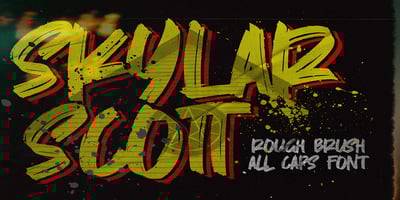
Skylarr Scott
Skylarr Scott font
Skylarr Scott Font Family was designed by Abdul Malik Wisnu, Anang Fibriyanto and published by Gassstype. Skylarr Scott contains 1 styles and family package options. Skylarr Scott – Handwritten Brush font with a Rough style and dramatic movement. This font is great for your next creative project such as logos, printed quotes, invitations, cards, product packaging, headers, Logotype, Letterhead, Poster, Label, and etc.